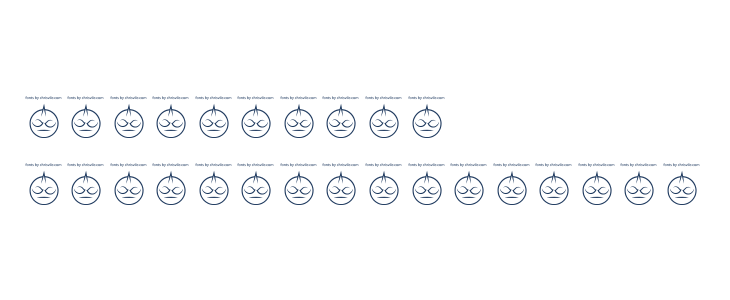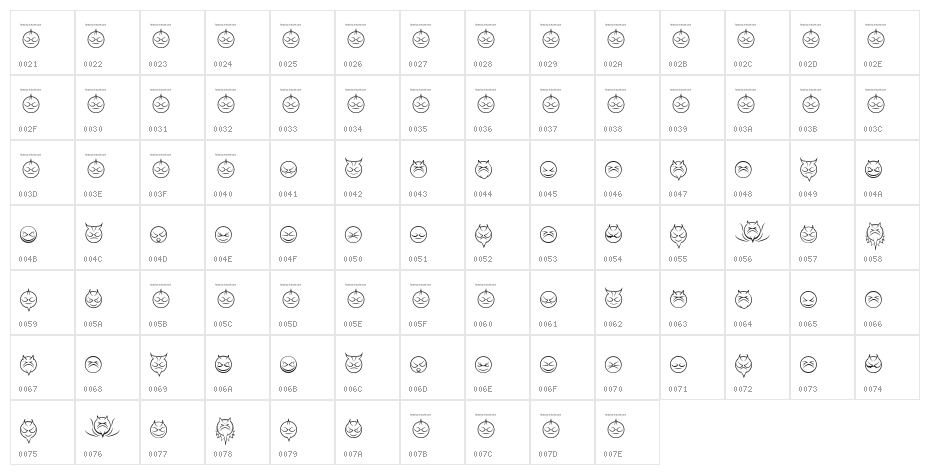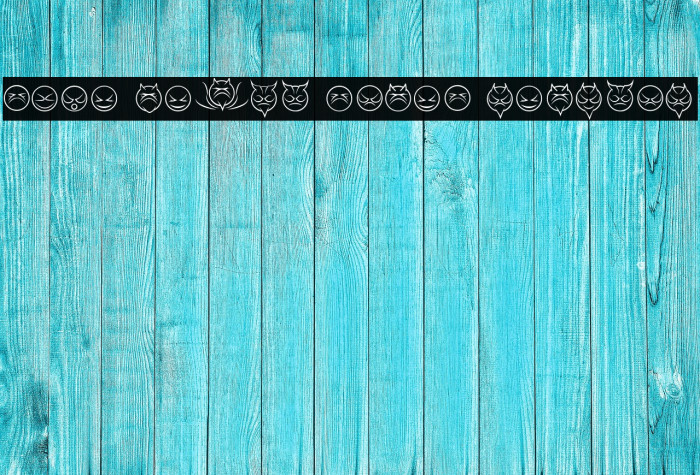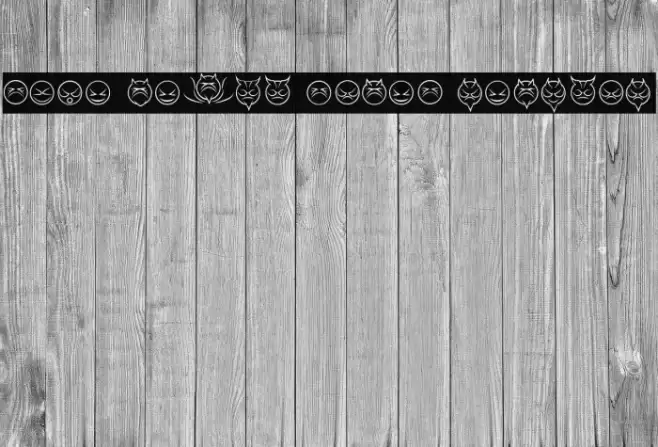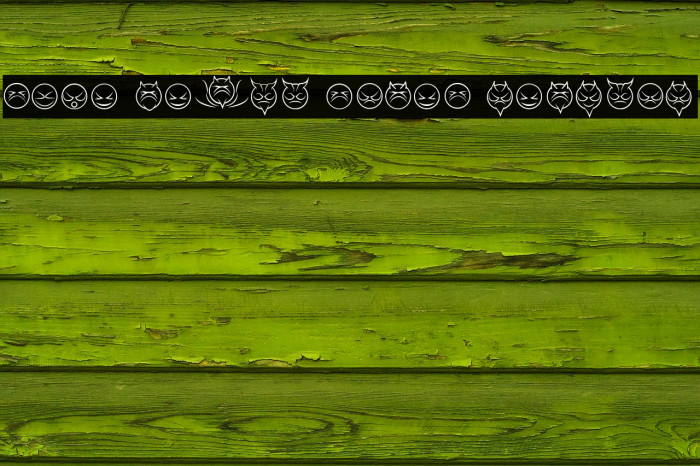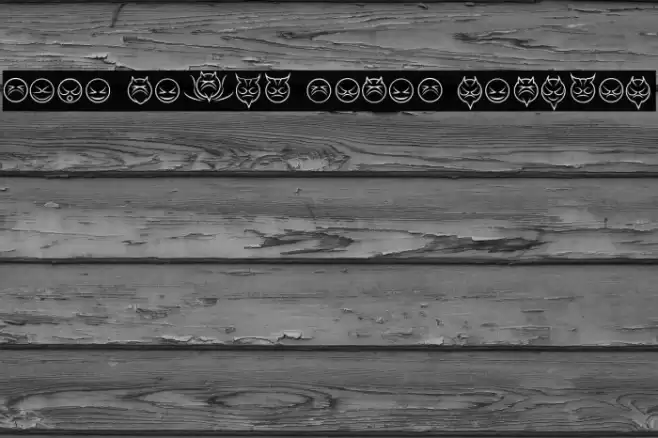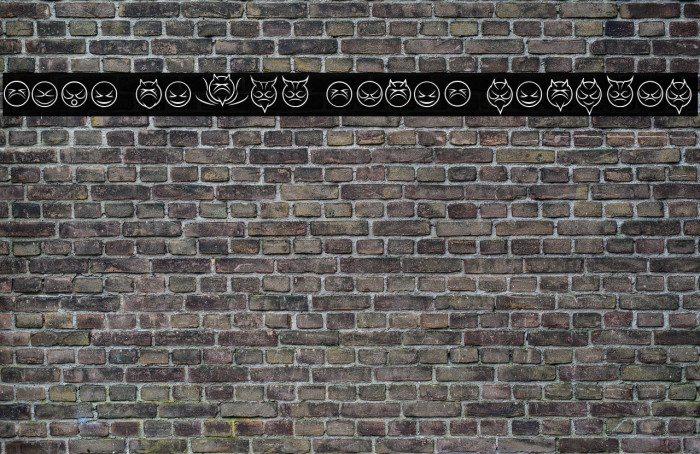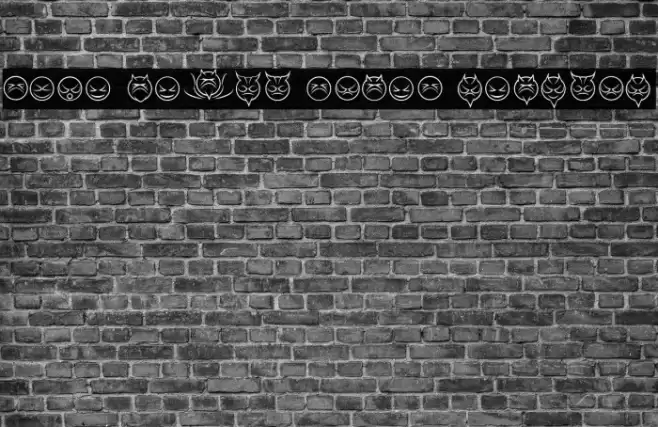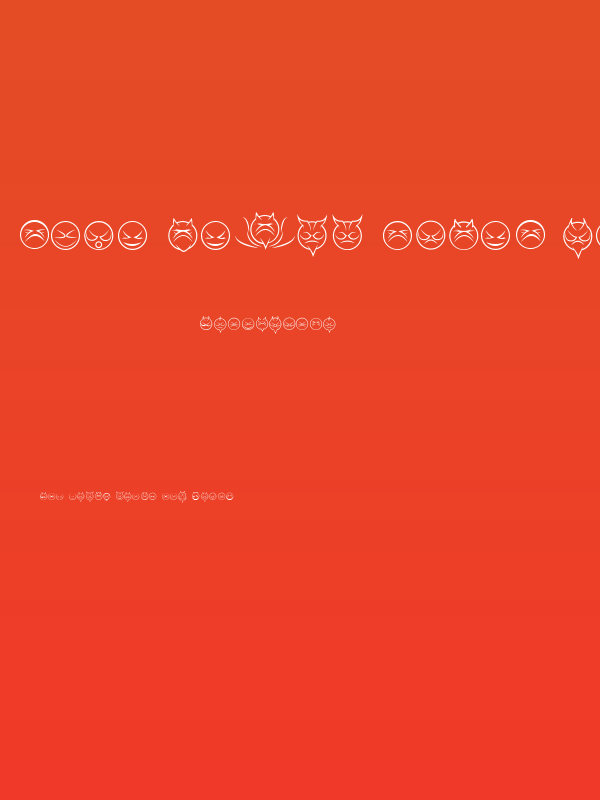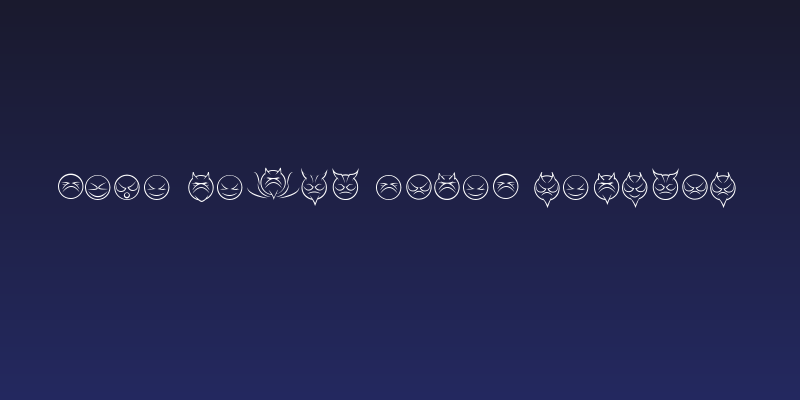
some devil faces Regular Font
some devil faces Regular Description
A decorative display font featuring a variety of outlined devilish and mischievous cartoon faces, each character represented by a unique expressive icon within a circular or horned outline. The style is playful and bold, with consistent line thickness and whimsical facial expressions.
| Overall Style | Decorative, Playful, Whimsical |
| Use Case | Logos, Posters, Headlines, Themed Graphics |
| Proposed Projects | Halloween invitations, comic books, party flyers, themed event posters, children's games, stickers. |